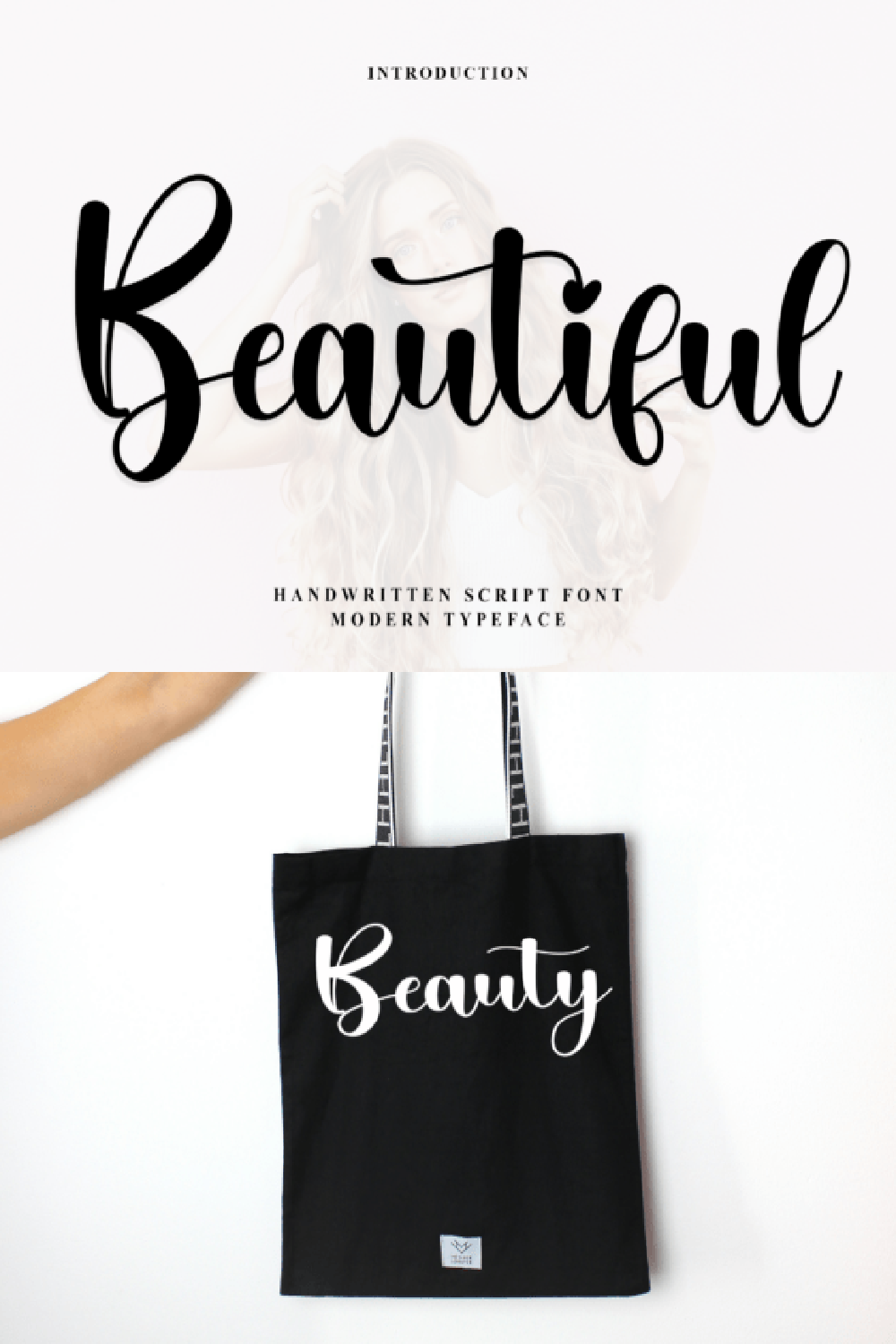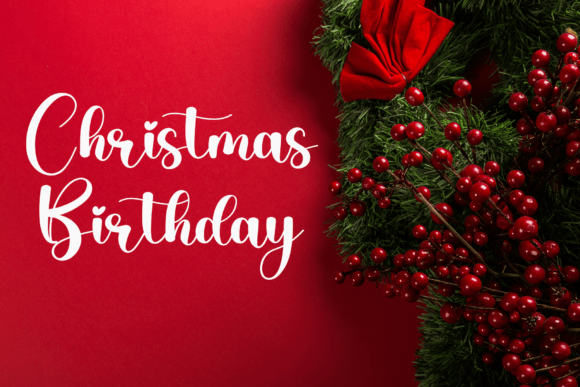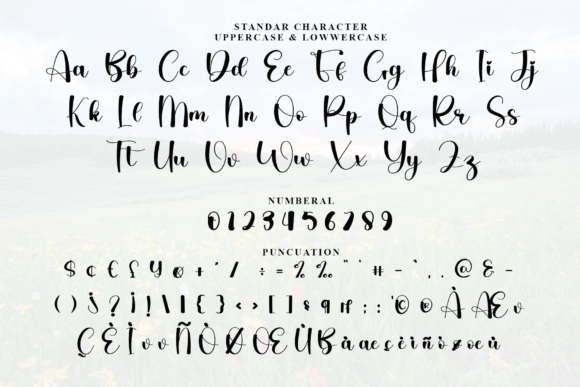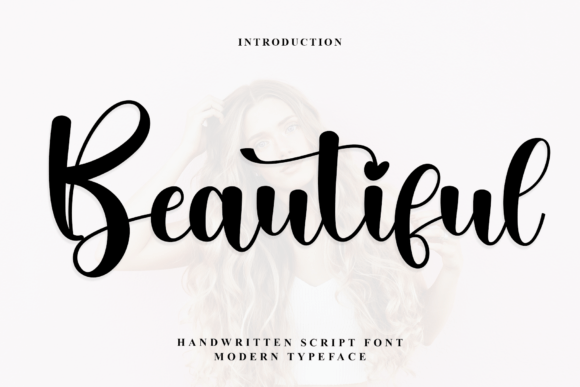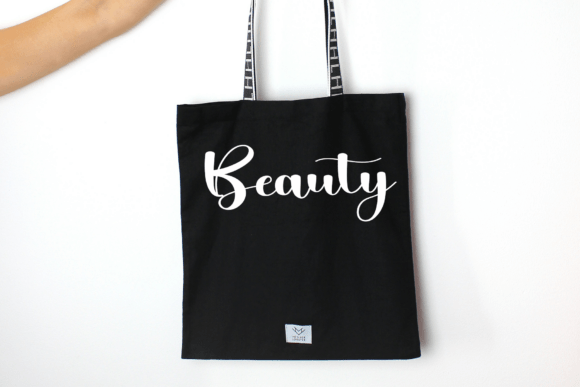
About the Beautiful Font
Step up your design game with Beautiful Font, a font that exudes confidence and style. Beautiful is a delicate handwritten font carefully crafted for a cool and unique design. This font can be used to write letters, invitations, food products, titles, and more.
Beautiful Font Usage Examples